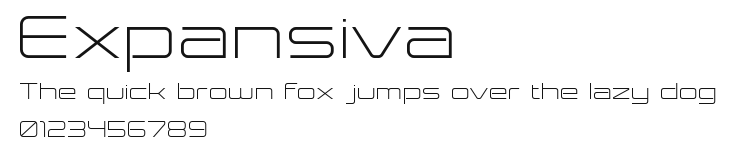
• Font Name: Expansiva
• Designer: Néstor Jairo Delgado
About Expansiva.otf
Expansiva.otf is a modern, elegant sans-serif font designed for ultimate readability and visual harmony. Perfect for branding, headlines, web design, and print materials.